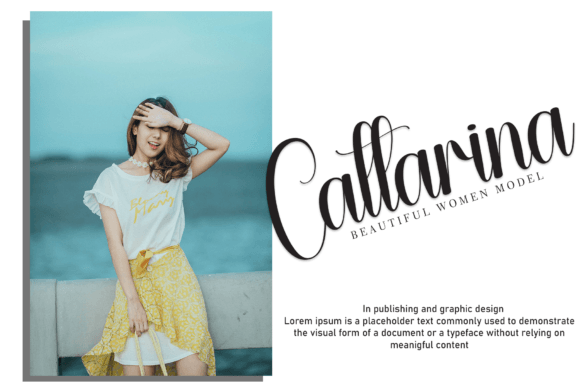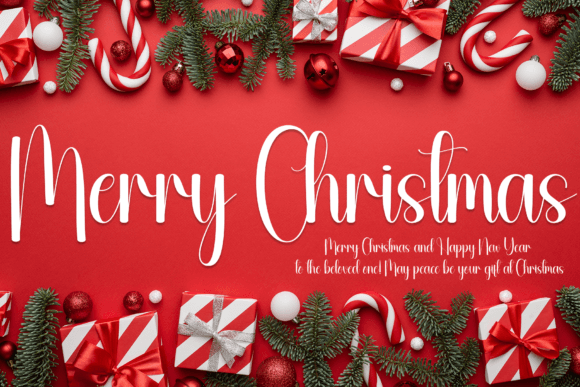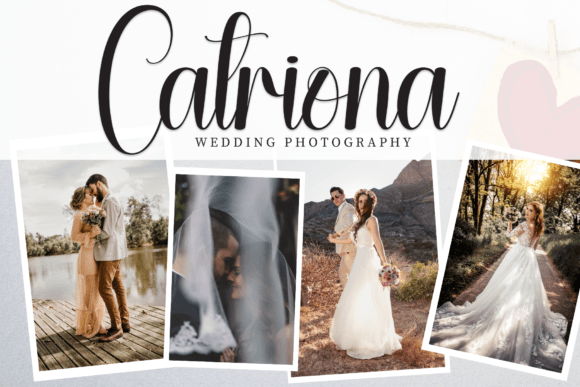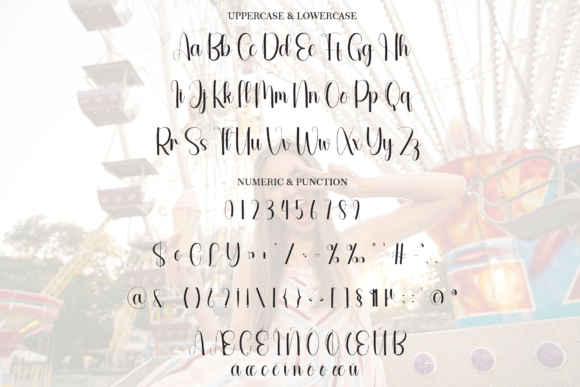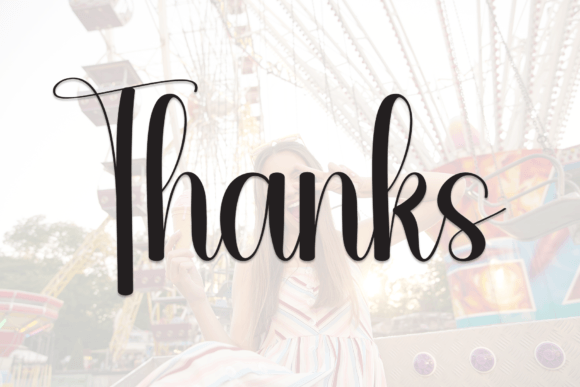
Introducing Amused Font: The Sweet and Friendly Handwritten Font for Your Design Needs
Are you looking for a font that can add a touch of warmth and personality to your designs? Look no further than Amused Font, a sweet and friendly handwritten font that’s perfect for a variety of creative projects. In this article, we’ll take a closer look at Amused Font, its features, and how you can use it to elevate your designs.
What is Amused Font?
Amused Font is a beautiful, handwritten font that’s designed to bring a sense of joy and playfulness to your designs. With its fresh and neat appearance, this font is ideal for writing wedding invitations, cards, or any other design that might need a fun touch. Whether you’re a designer, crafter, or DIY enthusiast, Amused Font is a great addition to your font collection.
Key Features of Amused Font
- Sweet and Friendly Design: Amused Font has a warm and inviting design that’s perfect for creating designs that are both personal and engaging.
- Handwritten Style: This font has a beautiful, handwritten style that’s perfect for adding a touch of personality to your designs.
- Fresh and Neat Appearance: Amused Font has a clean and crisp appearance that’s perfect for designs that require a high level of readability.
- Versatile: This font is perfect for a variety of design projects, including wedding invitations, cards, posters, and more.
- Wedding Invitations: Amused Font is perfect for creating beautiful and personalized wedding invitations that will set the tone for your special day.
- Greeting Cards: This font is great for creating custom greeting cards for birthdays, holidays, and other special occasions.
- Posters and Flyers: Amused Font can add a touch of personality to your posters and flyers, making them more eye-catching and engaging.
- DIY Projects: This font is perfect for crafters and DIY enthusiasts who want to add a personal touch to their projects, such as handmade signs, banners, and more.
- Unique Design: Amused Font has a unique and distinctive design that’s sure to set your designs apart from the crowd.
- High Readability: Amused Font has a high level of readability, making it perfect for designs that require a clear and concise message.
In conclusion, Amused Font is a sweet and friendly handwritten font that’s perfect for adding a touch of personality to your designs. With its fresh and neat appearance, this font is ideal for a variety of creative projects, including wedding invitations, cards, and more. Whether you’re a designer, crafter, or DIY enthusiast, Amused Font is a great addition to your font collection.